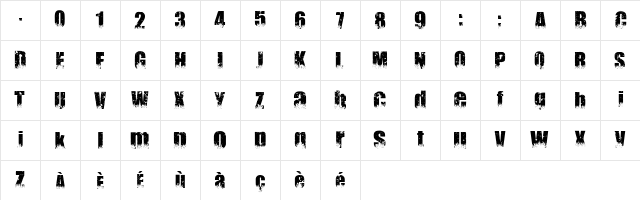
Gardiendherbe Regular
| Designer | Steve Cloutier |
Design Context for Gardiendherbe Typeface
Gardiendherbe is a composed and adaptable typeface that performs quietly and consistently across a wide range of design contexts.